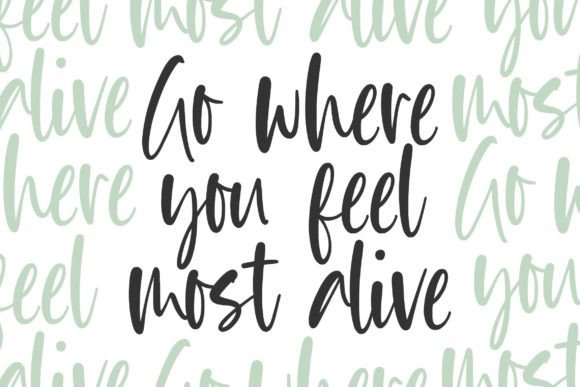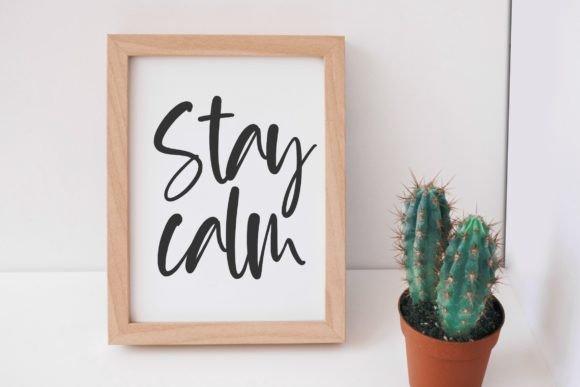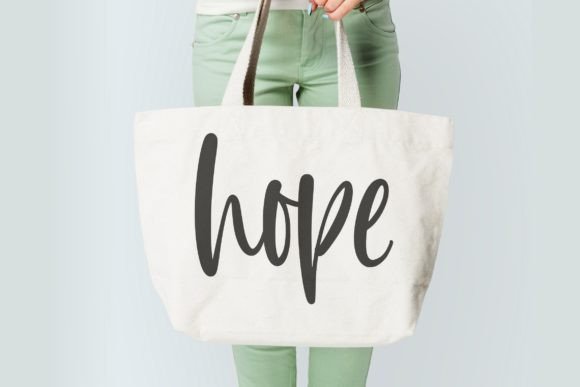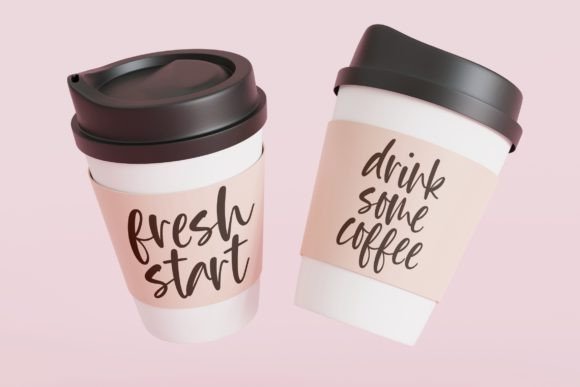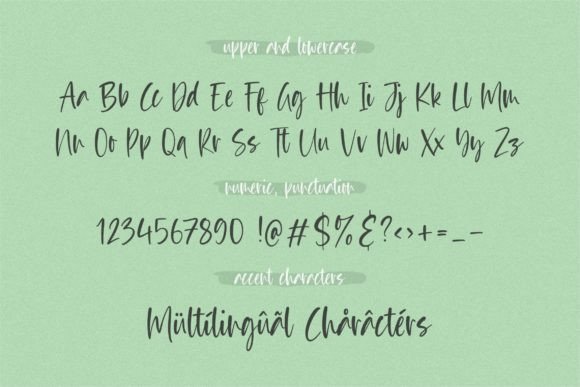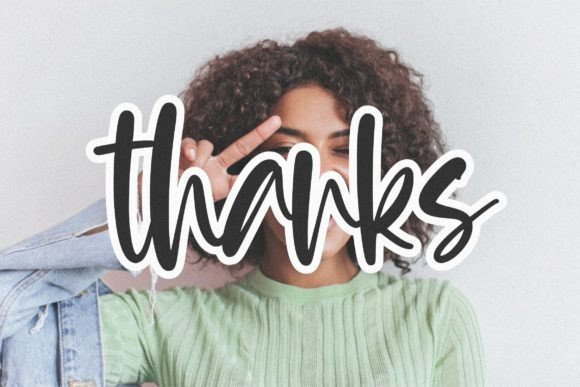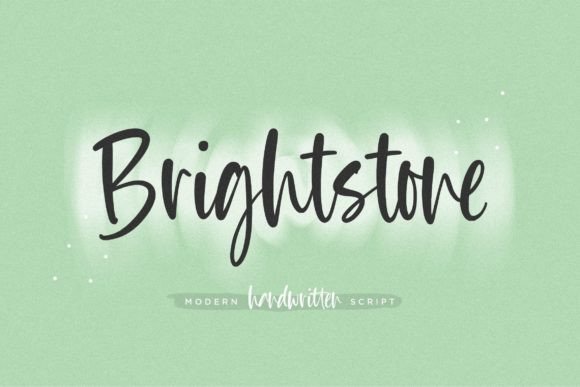
Introducing Brightstone: The Modern Handwritten Script Font for Your Creative Projects
Are you a designer or crafter looking for a unique and elegant font to elevate your creative projects? Look no further than Brightstone, a modern handwritten script font that is perfect for a wide range of applications. In this article, we’ll take a closer look at the features and benefits of Brightstone, and explore how you can use it to add a touch of sophistication and style to your designs.
What is Brightstone?
Brightstone is a modern handwritten script font that is designed to be both elegant and versatile. With its flowing lines and cursive strokes, this font is perfect for creating beautiful and eye-catching designs that are sure to impress. Whether you’re working on a wedding invitation, a logo, or a packaging design, Brightstone is the perfect choice.
Key Features of Brightstone
So what makes Brightstone such a great font? Here are just a few of its key features:
- Modern and elegant design: Brightstone has a sleek and sophisticated design that is perfect for modern designs.
- Handwritten script style: The font’s handwritten script style gives it a personal and unique touch.
- Versatile: Brightstone can be used for a wide range of projects, from weddings and events to logos and packaging.
- Easy to read: Despite its elegant design, Brightstone is easy to read and understand, making it perfect for body text and headlines.
Use Cases for Brightstone
So what can you use Brightstone for? The possibilities are endless! Here are just a few ideas to get you started:
- Weddings and events: Brightstone is perfect for wedding invitations, escort cards, table numbers, and other event materials.
- Invitations and greeting cards: The font’s elegant design makes it perfect for creating beautiful invitations and greeting cards.
- Logos and branding: Brightstone can be used to create unique and memorable logos and branding materials.
- Packaging and displays: The font’s modern design makes it perfect for packaging and display materials, such as product labels and signage.
- Blogs and social media: Brightstone can be used to create beautiful and engaging blog posts and social media graphics.
Why Choose Brightstone?
So why should you choose Brightstone for your design projects? Here are just a few reasons:
- Unique and elegant design: Brightstone has a unique and elegant design that will set your designs apart from the crowd.
- Versatile: The font can be used for a wide range of projects, making it a great addition to your font library.
- High-quality: The font is made from high-quality vectors, ensuring that it will look great in any design.